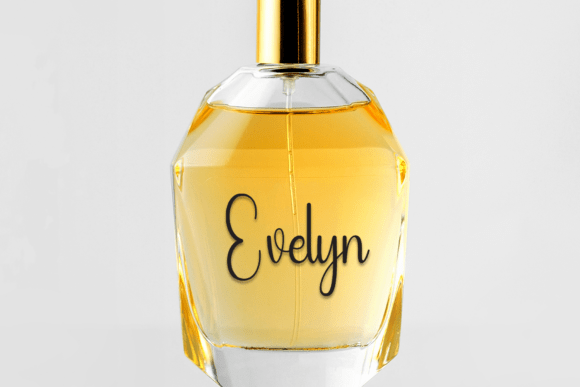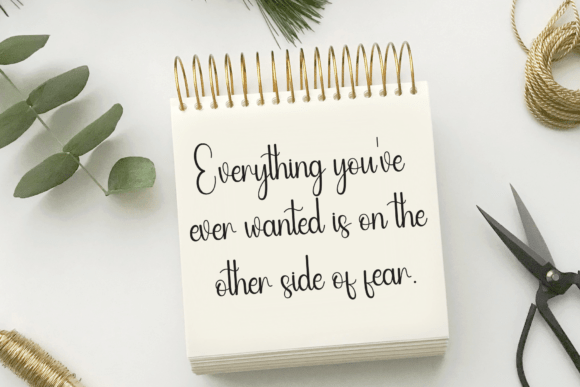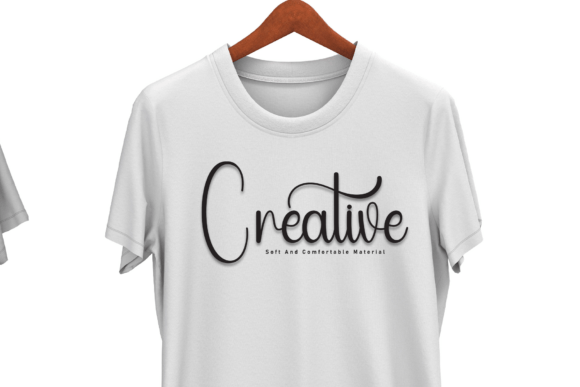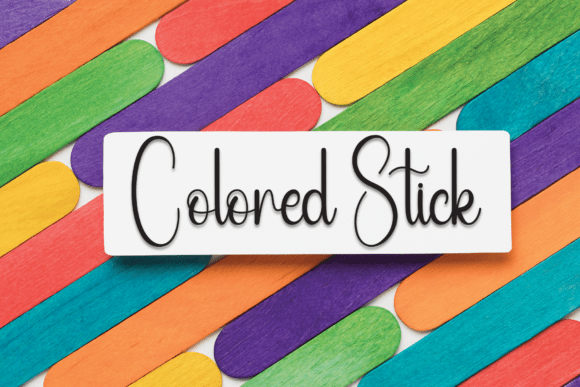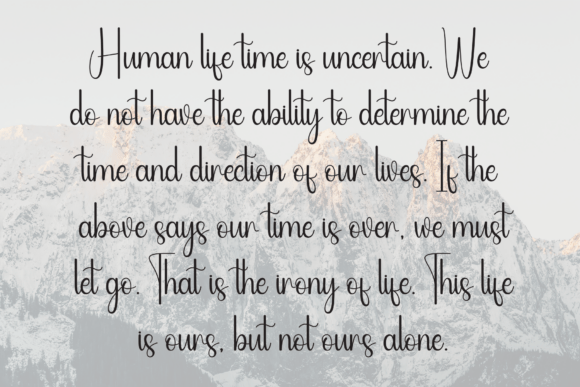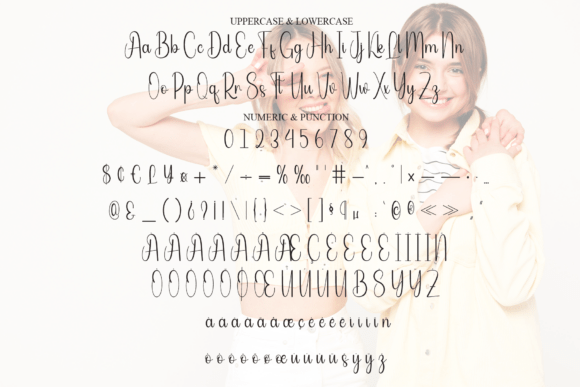
The Bestie Font: A Stylish Handwritten Script for Creative Projects
I’ll never forget the time I was working on a branding project for a boutique bakery, struggling to find the perfect font that captured their warm and inviting personality. The client wanted something that felt personal, yet sophisticated. That’s when I stumbled upon the Bestie font, a stylish handwritten script that instantly won me over. In this article, I’ll share my experience with Bestie, its features, and how to make the most of it in your designs.
An Honest Review of Bestie Font
As a designer, I’m always on the lookout for fonts that can elevate my projects. Here’s what I love about Bestie:
• ✨ Modern elegance with a playful touch: Bestie strikes the perfect balance between sophistication and whimsy, making it ideal for a wide range of creative projects.
• ✅ Fluid strokes and charming curves: The font’s smooth, flowing lines bring a personal feel to any design, making it perfect for logos, packaging, and invitations.
• ✅ Versatile and highly legible: Bestie is easy to read, even at smaller sizes, making it suitable for body text and headlines.
While Bestie is an excellent font, it’s not without its quirks:
• 🤔 Limited use in very formal contexts: Bestie’s playful nature might not be suitable for very formal or corporate designs, such as financial reports or academic papers.
• ⚠️ Some characters may require manual kerning: As with many script fonts, you might need to adjust the kerning of certain character combinations to achieve optimal results.
The Story Behind Bestie Font
Bestie was designed by a talented type designer who wanted to create a font that captured the warmth and personality of handwritten scripts. Inspired by the beauty of fluid strokes and charming curves, Bestie was crafted to bring a personal feel to any design. Whether you’re working on a logo, packaging, or invitation, Bestie is the perfect choice for designers, crafters, and creative hobbyists.
What type of projects is Bestie suitable for? Bestie is ideal for logos, packaging, invitations, and any design that requires a personal, yet sophisticated touch.
Does Bestie support OpenType features? Yes, Bestie supports OpenType features, including stylistic alternates, glyphs, and more.